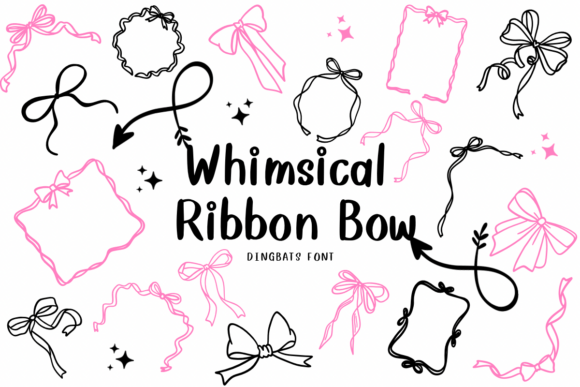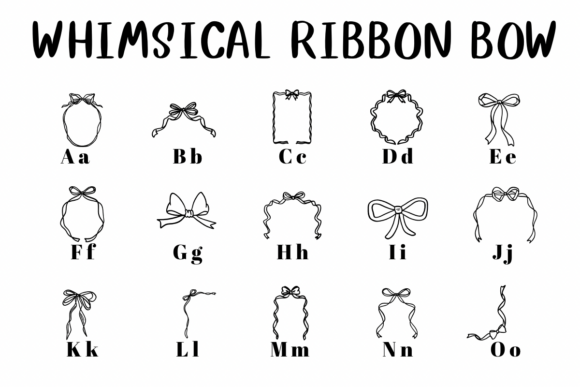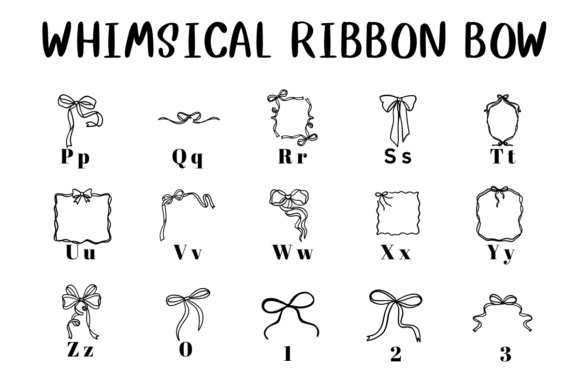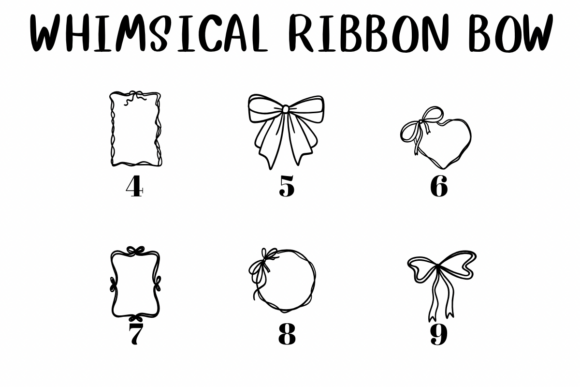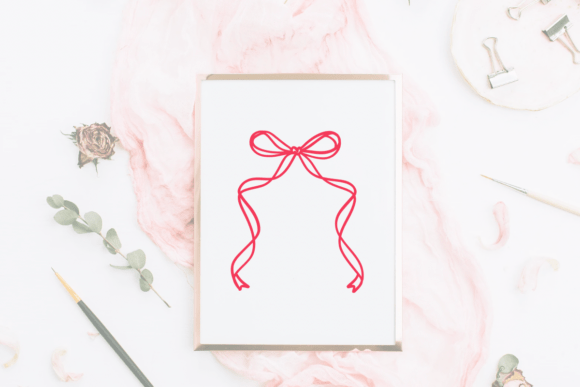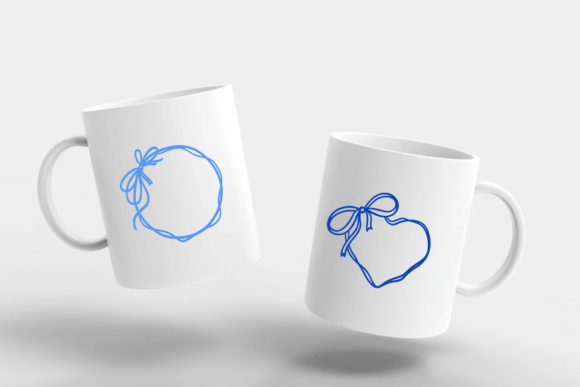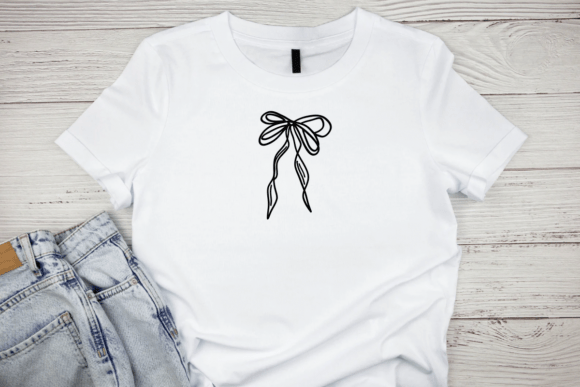
Whimsical Ribbon Bow Font
Whimsical Ribbon Bow is a dingbats font with a cute theme. This font can enhance your creative projects such as wedding invitations, DIY, crafts, decorations, logos, and many other creative ideas.